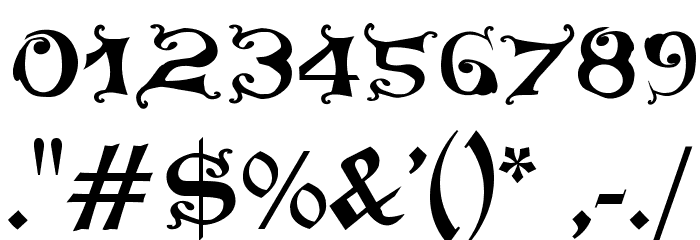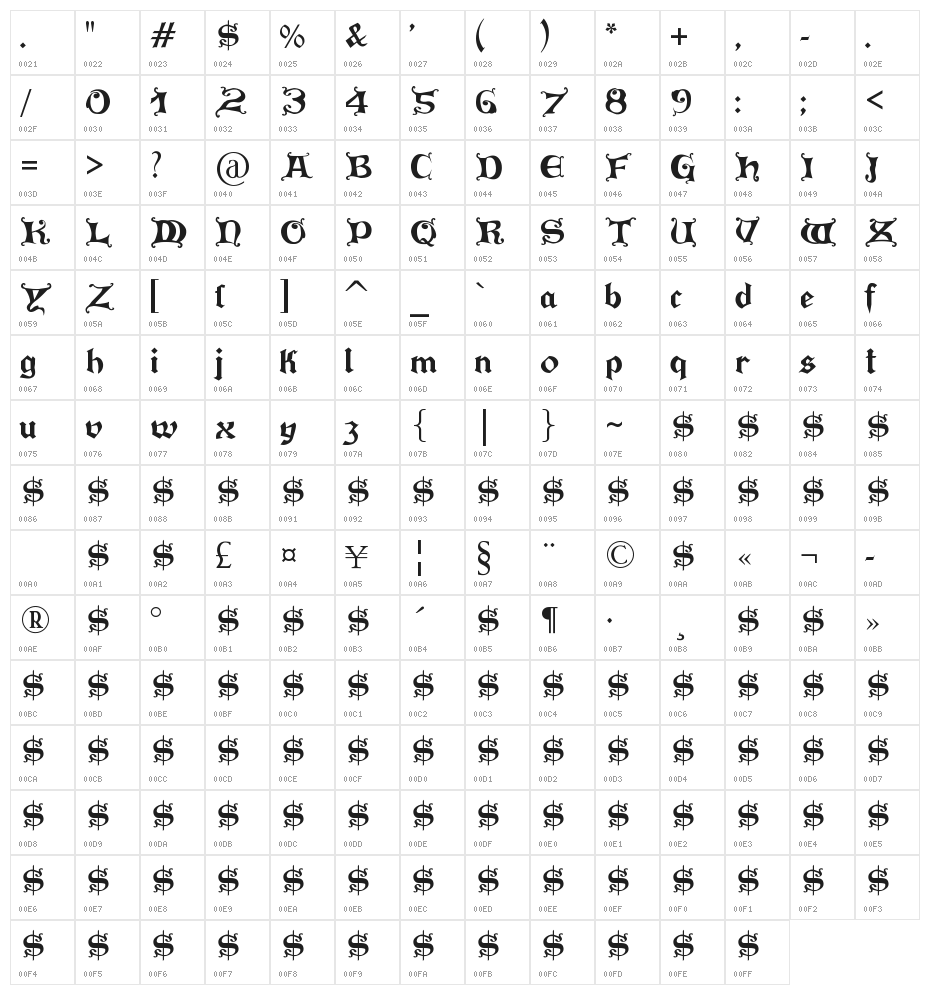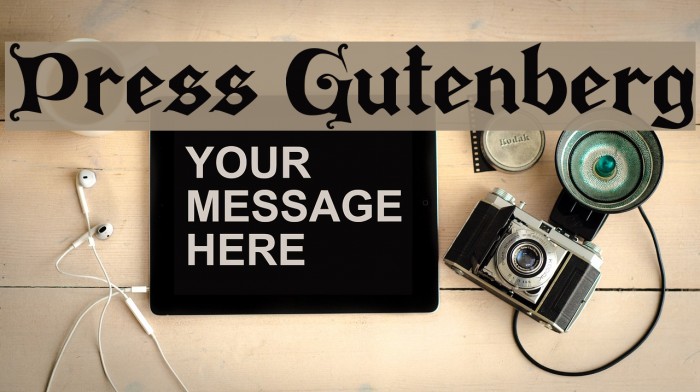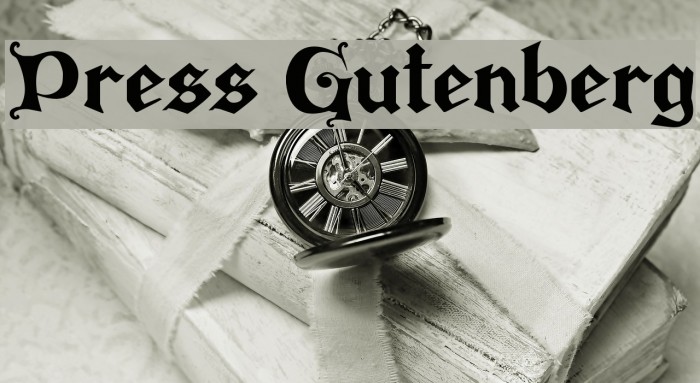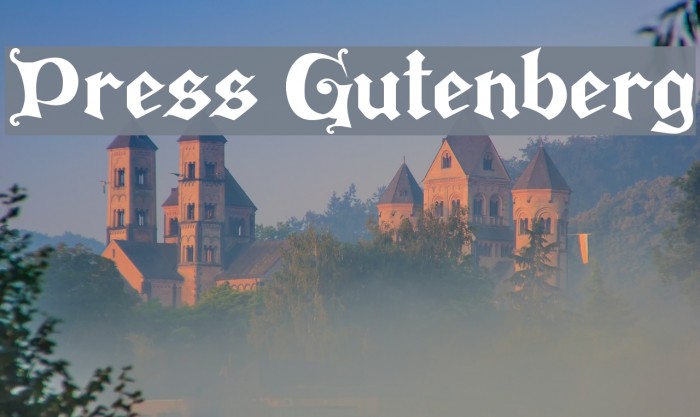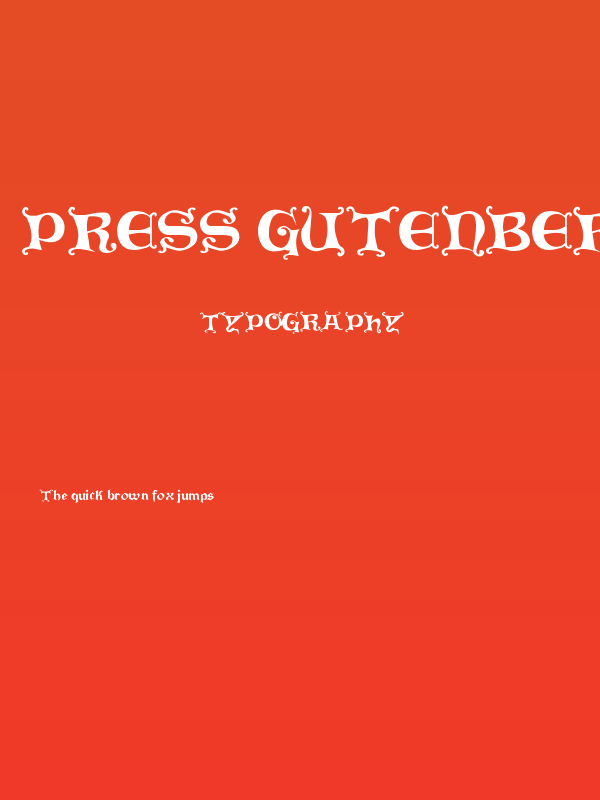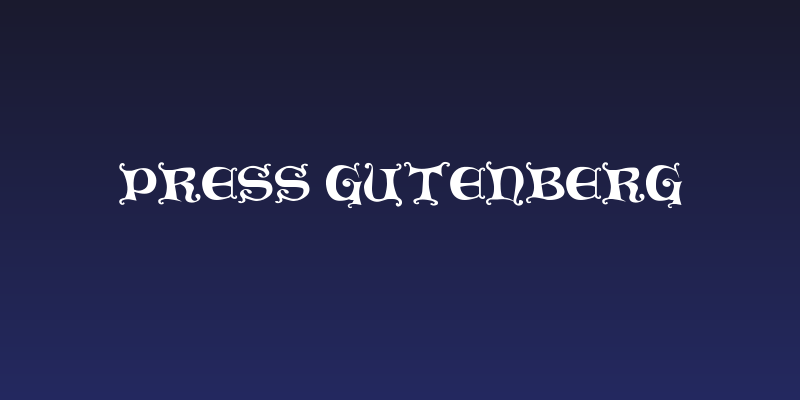
Press Gutenberg Font
Press Gutenberg Description
This font features a distinct and ornate style reminiscent of traditional Blackletter typefaces. The uppercase letters are adorned with intricate flourishes, giving them a decorative and historical appearance. The lowercase letters maintain a bold and angular structure, typical of Gothic scripts, providing a strong visual impact. Numerals and special characters are designed to match the elaborate style, ensuring consistency across all glyphs. The overall aesthetic is both dramatic and elegant, making it suitable for projects that require a touch of vintage sophistication.
| Proposed Projects | Ideal for historical documents, wedding invitations, book covers, and branding that requires a vintage or Gothic touch. |